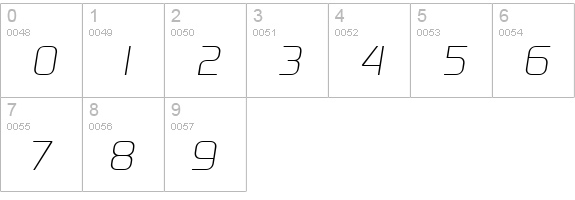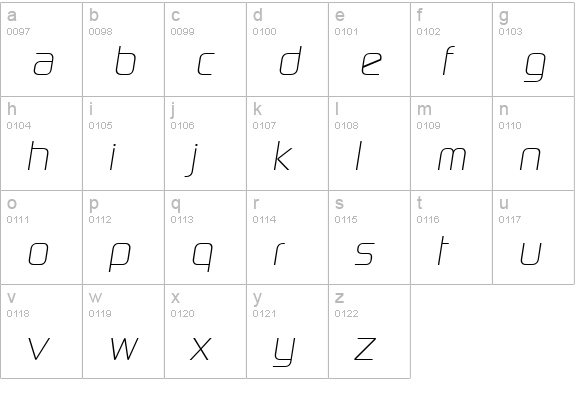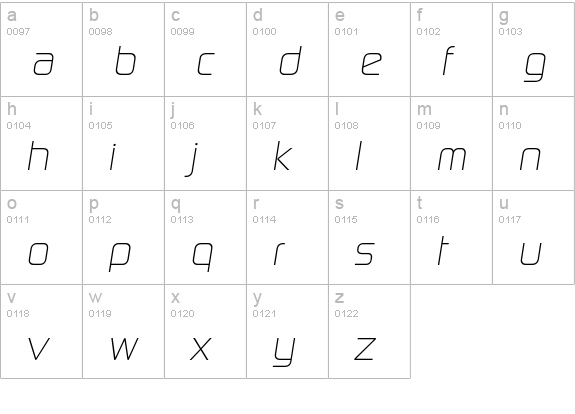
DigitalSerial-Italic Font Details
DigitalSerial-Italic is a distinctive, italic variant in the DigitalSerial typeface family \xE2\x80\x94 well suited to design and typography projects.
DigitalSerial-Italic is a sleek and modern font that perfectly captures the essence of digital technology. Its italic style adds a touch of sophistication and elegance to any design project. The sharp angles and clean lines of this font make it ideal for conveying a sense of innovation and progress. What's even better is that DigitalSerial-Italic is available for free download at FontsMarket.com. This means you can easily access this stylish font and use it in your projects without any cost. Whether you're working on a website, poster, or branding materials, DigitalSerial-Italic will bring a contemporary and professional look to your designs. Don't miss out on the opportunity to enhance your creations with this fantastic font, download it for free today at FontsMarket.com.